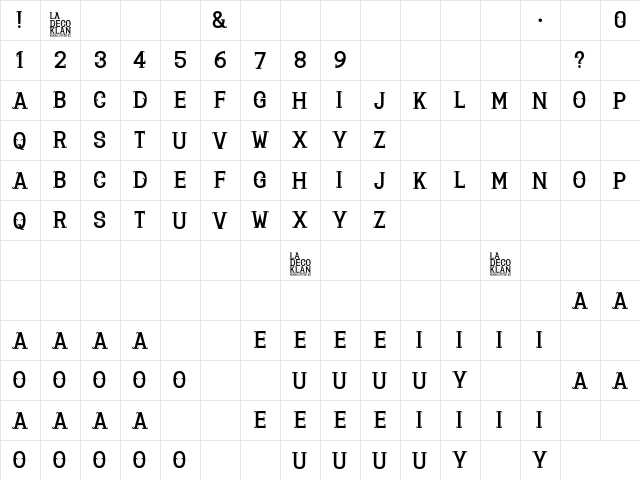
La Deco Klan Regular Font Preview
La Deco Klan Regular
Design Context for La Deco Klan Typeface
La Deco Klan is a composed and adaptable typeface that performs quietly and consistently across a wide range of design contexts.